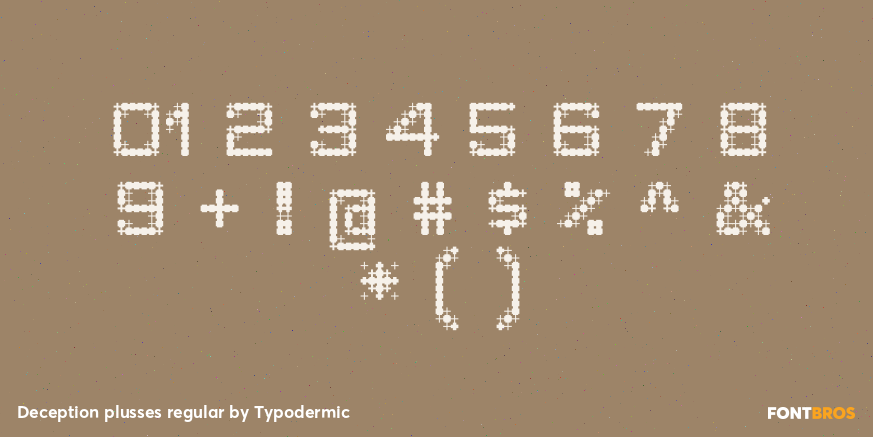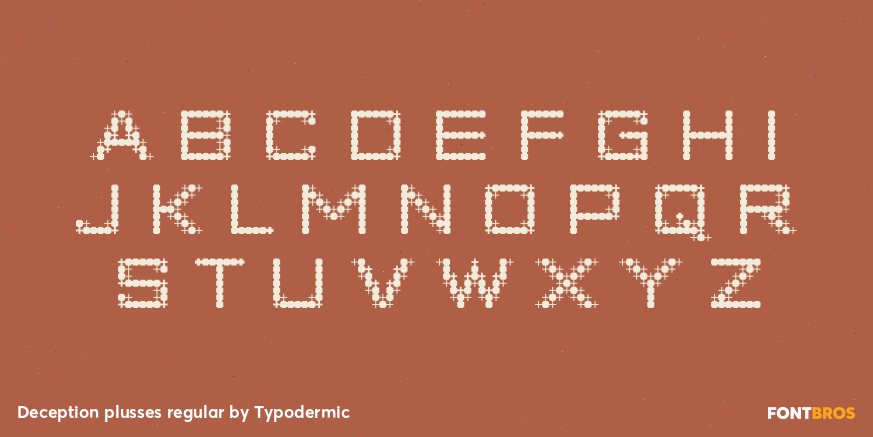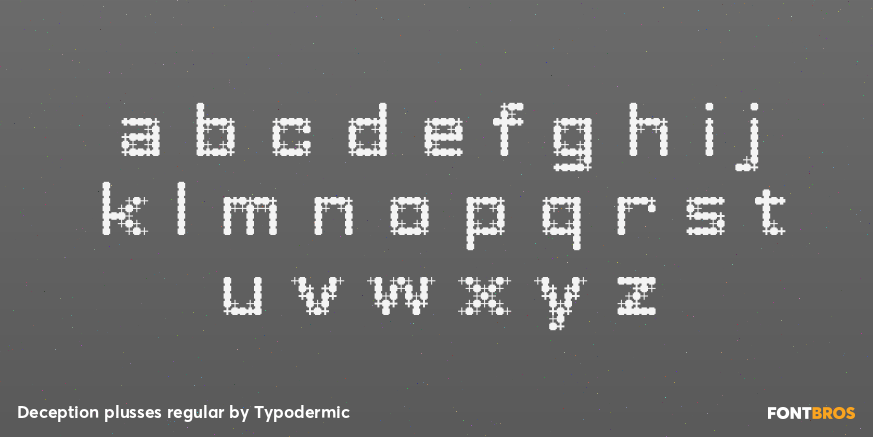
Deception plusses regular
Deception Plusses constructs the letters from cross-shaped marks that recall calibration points, tracking targets, registration symbols, and coordinate overlays. The treatment connects typography with systems that locate, align, measure, or verify an image.
Use Plusses for computer-vision branding, motion-tracking demonstrations, mapping conferences, augmented-reality graphics, laboratory interfaces, calibration equipment, and exhibits about digital capture. Regular and Bold let the same targeting language move from supporting headings to stage-scale titles.
Deception plusses regular by Typodermic